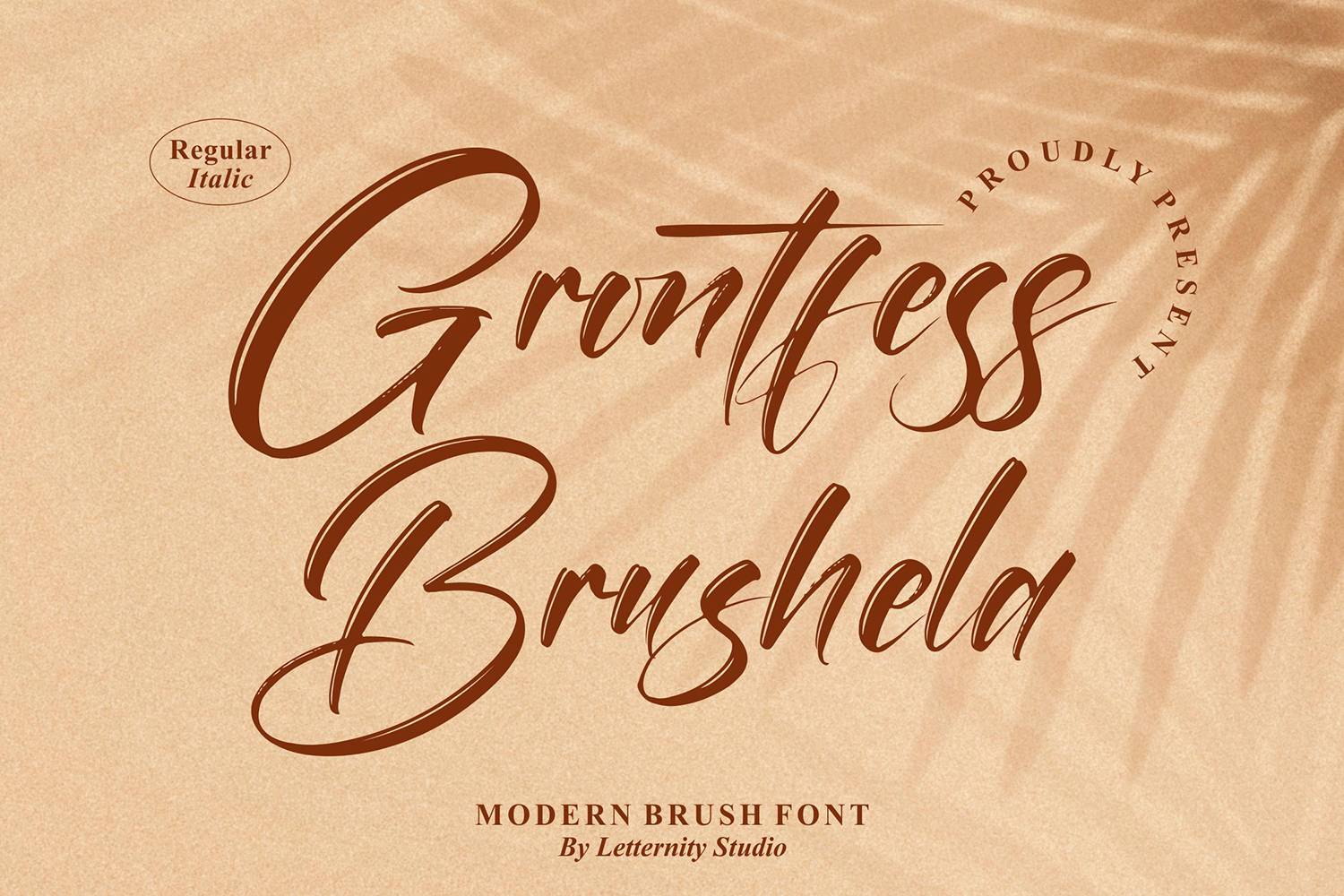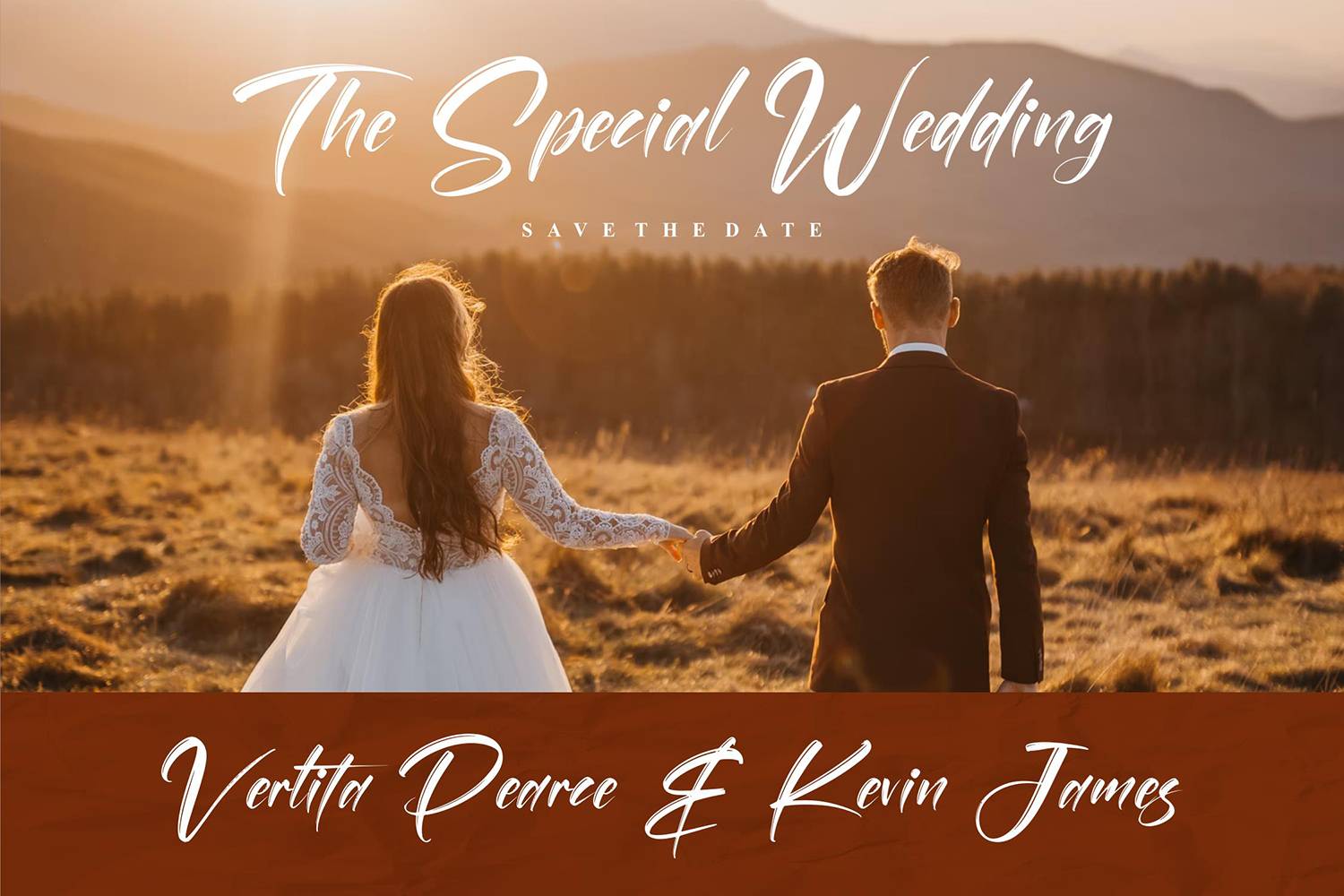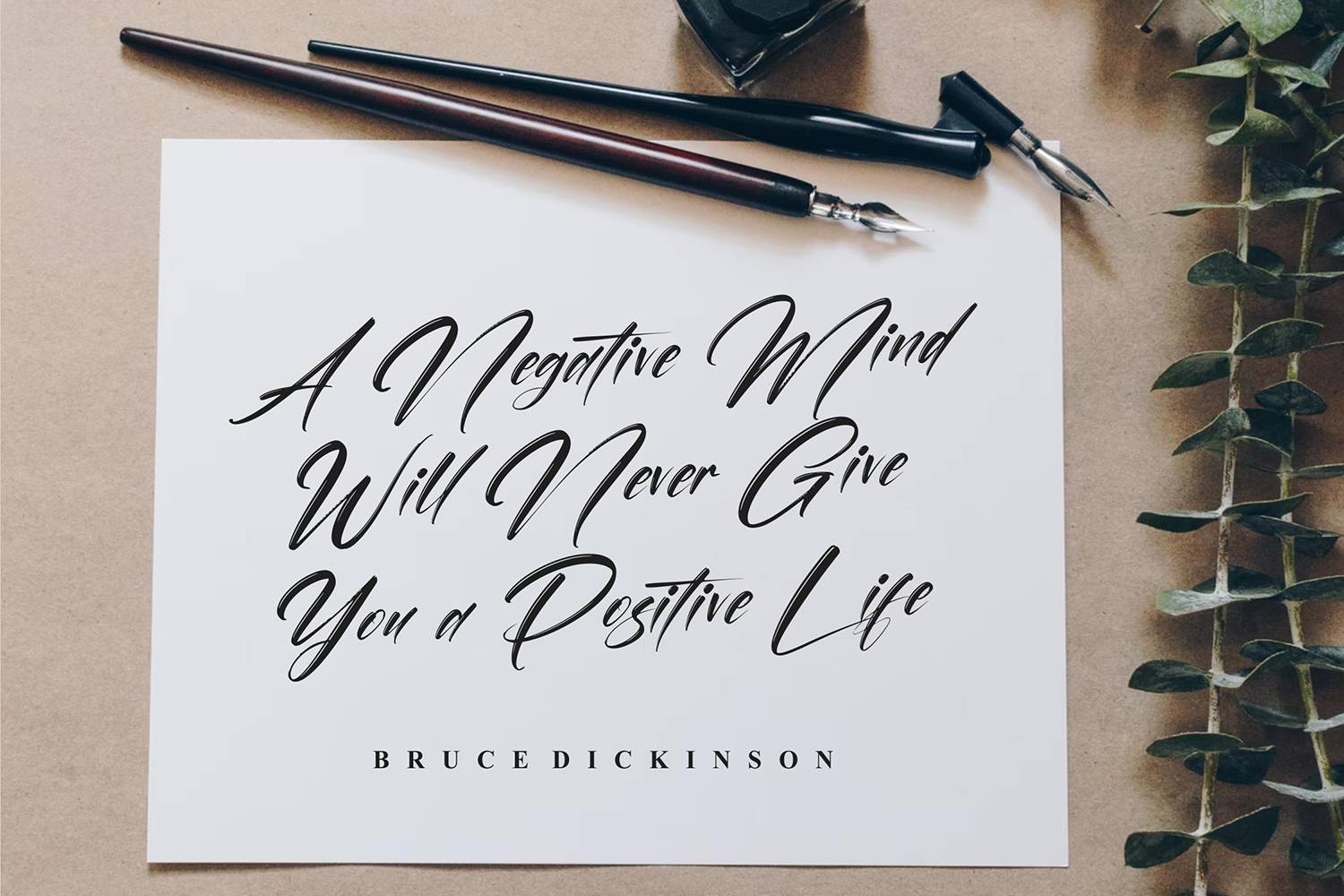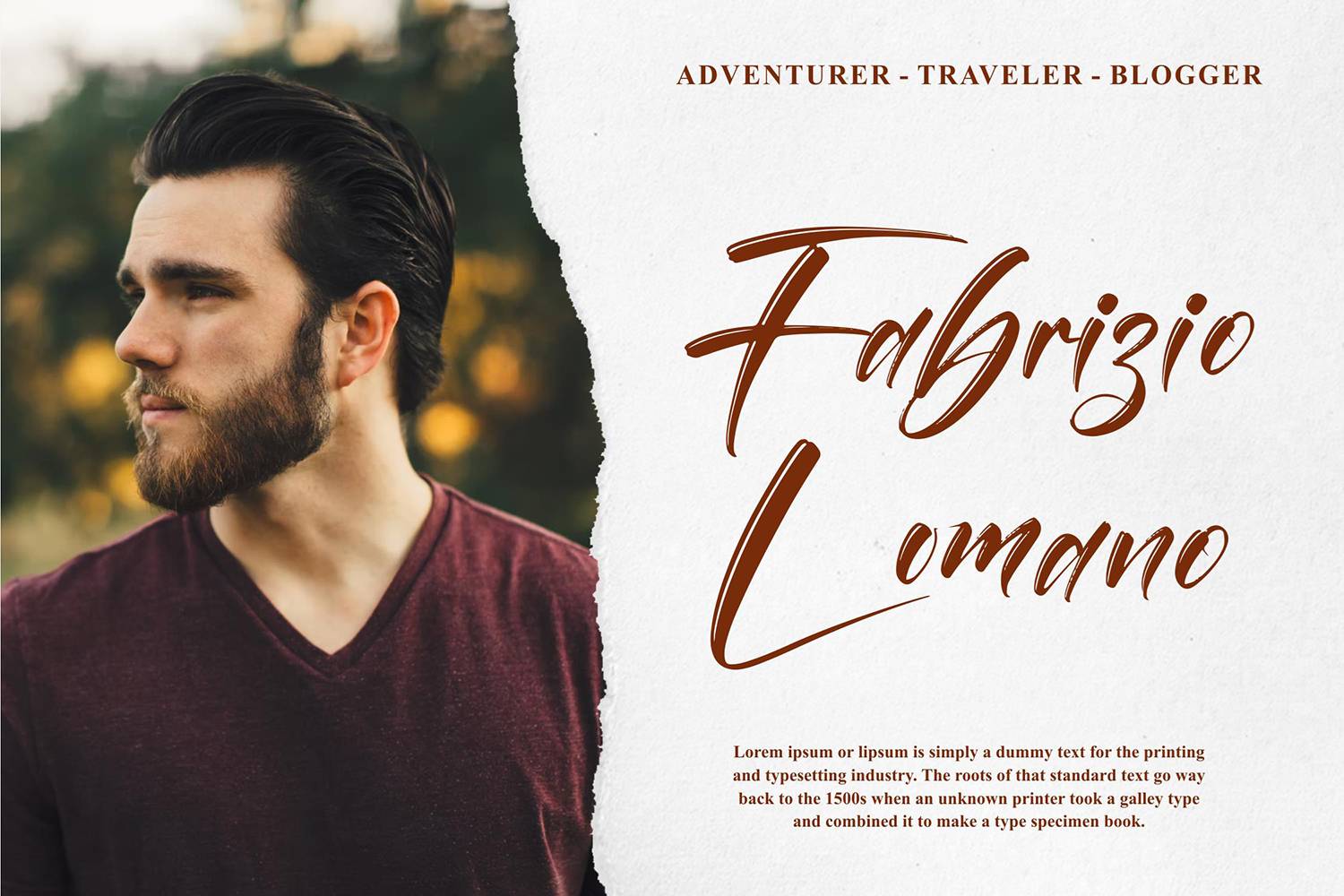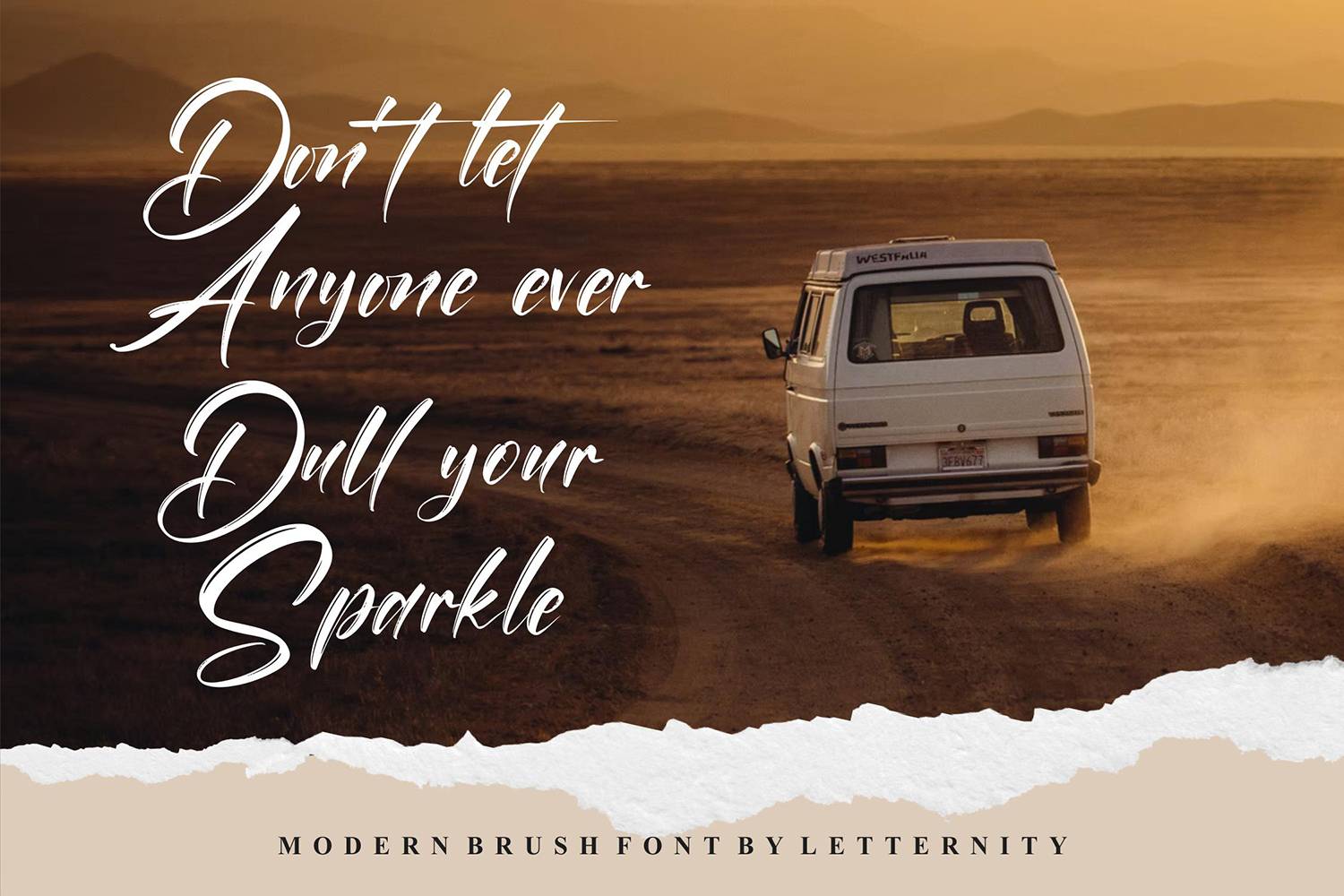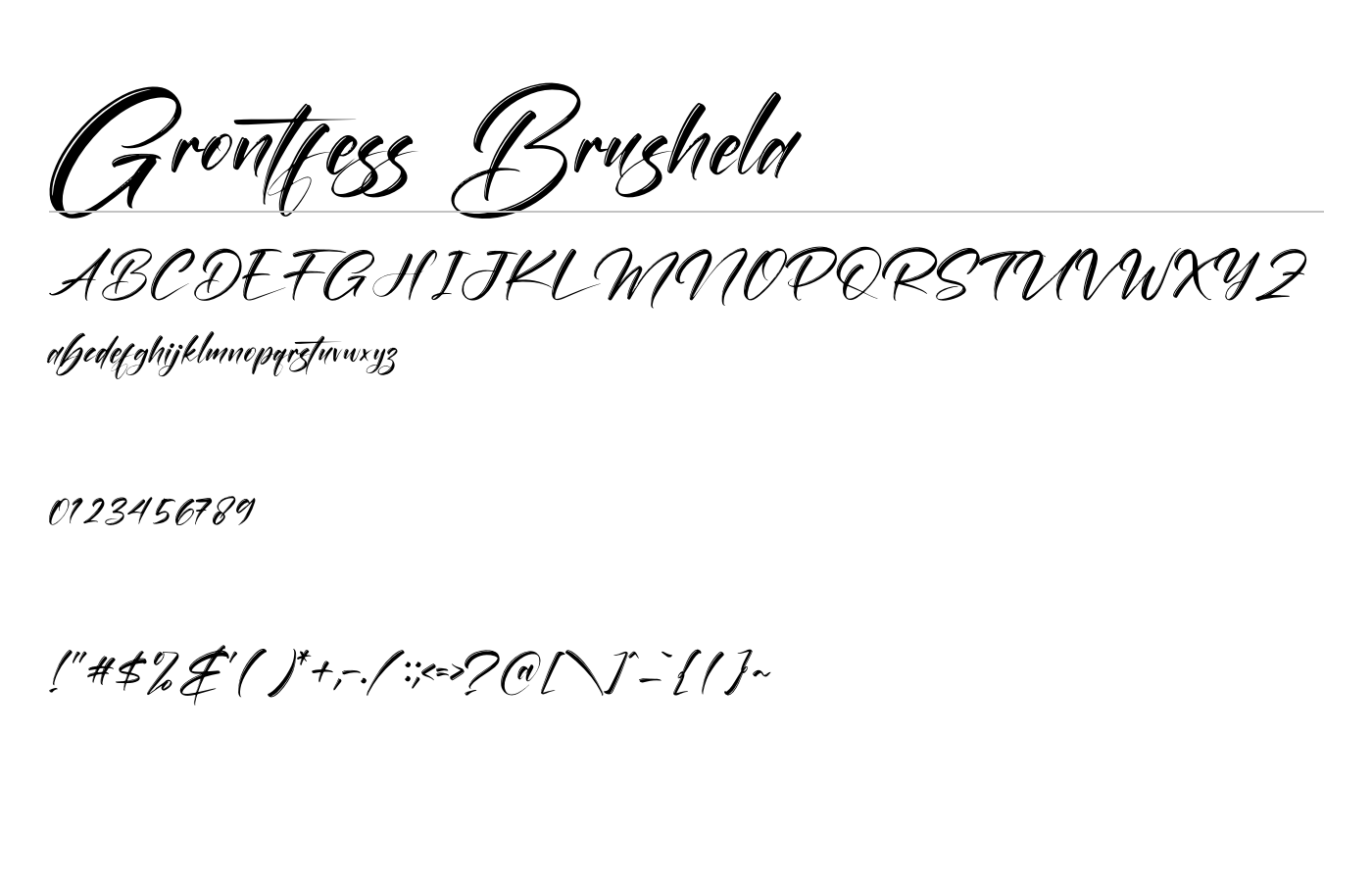
Grontfess Brushela is an elegant, brush-script font that combines fluid, hand-drawn strokes with a lively, natural flow. Its varying stroke thickness and delicate curves give it a stylish, artistic feel, perfect for creative branding, invitations, and fashion-forward designs that seek a personal, sophisticated touch. This font works well in logos and headlines where a unique, expressive aesthetic is needed to capture attention.
Grontfess Brushela Font
About Grontfess Brushela Font